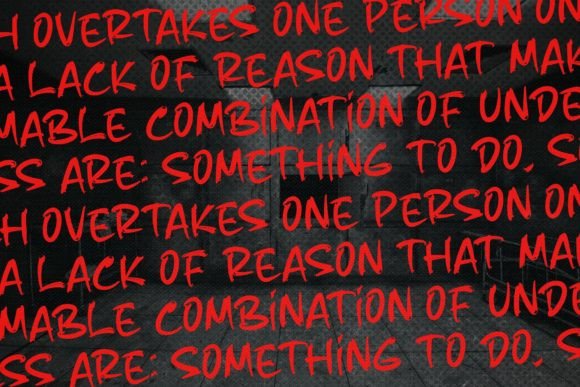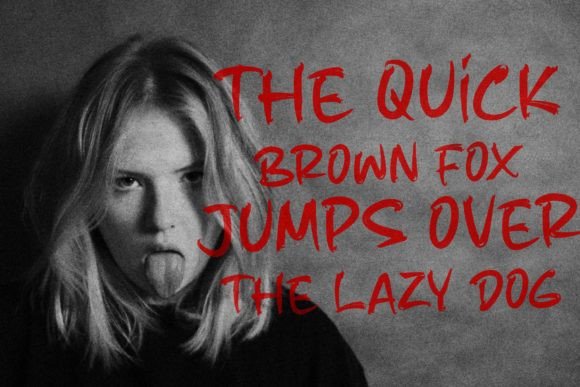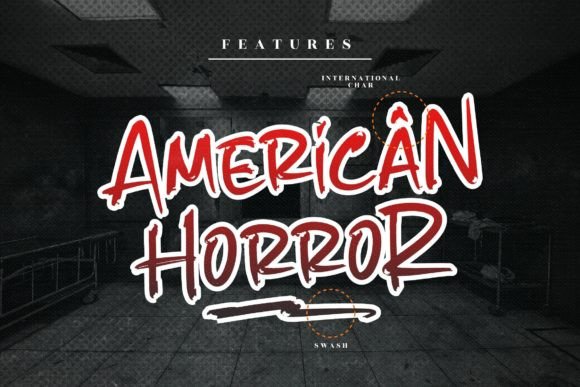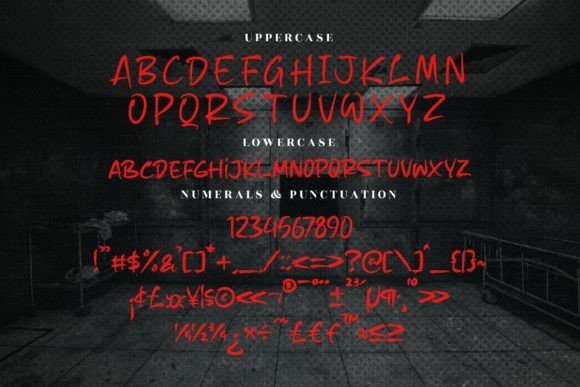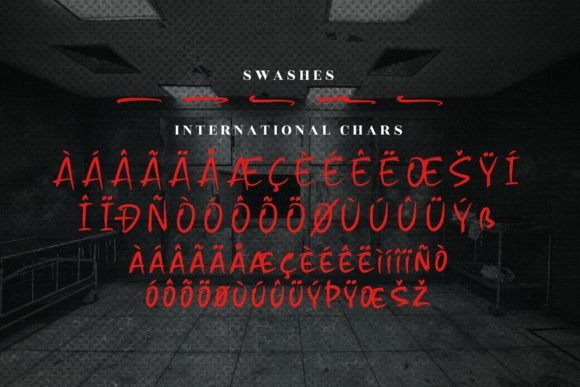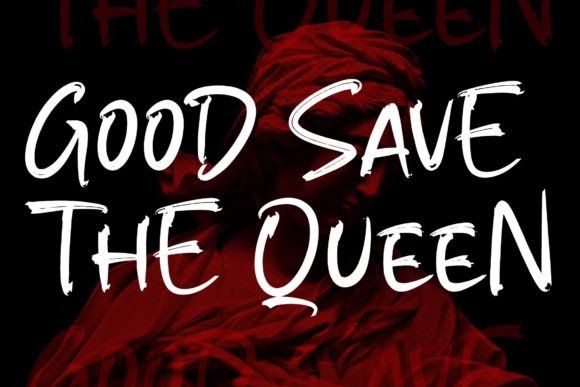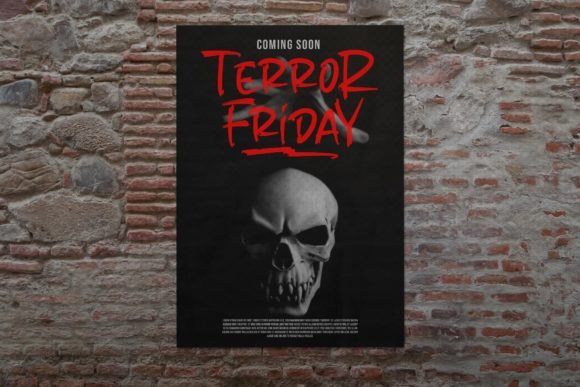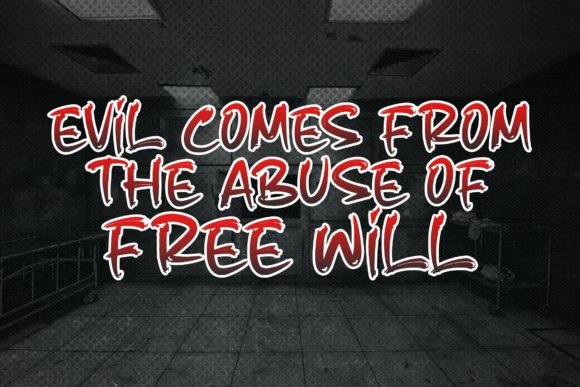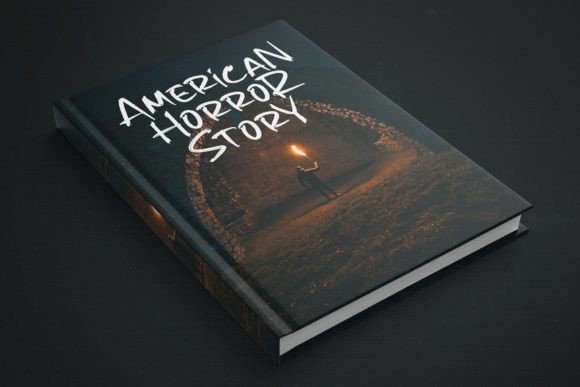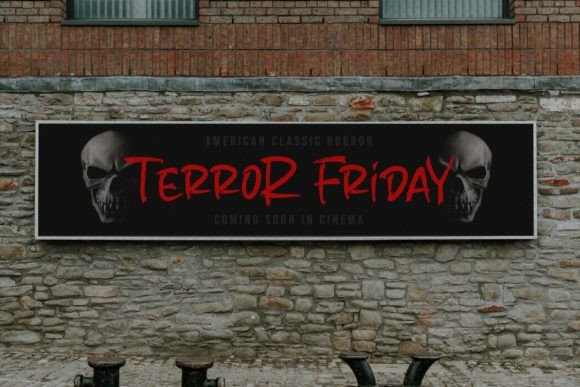
Franklin Font
About Franklin Font
Franklin is a font with a scary and minimal brushstroke effect, designed to evoke an ambiance of horror in every application. Whether used for invitations, postcards, posters, or headings for a Halloween event, this font brings a chilling and eerie atmosphere to any setting.
The minimal brushstroke effect in Franklin enhances its spooky and unsettling vibe, making it particularly well-suited for creating an atmosphere of fear and anticipation. The font’s design ensures that the horror theme is readily available and effectively conveyed in various visual projects.
Franklin’s versatility allows it to be used across different mediums, providing a consistent and haunting aesthetic. Whether you’re designing materials for a Halloween party or creating spooky visuals, Franklin adds a touch of fear and suspense to your designs.
In summary, Franklin is not just a font; it’s a creative tool crafted to bring a scary and minimal brushstroke effect to your horror-themed designs. Its unique style ensures that the ambiance of horror is readily available in every application, making it a suitable choice for a range of spooky design projects.